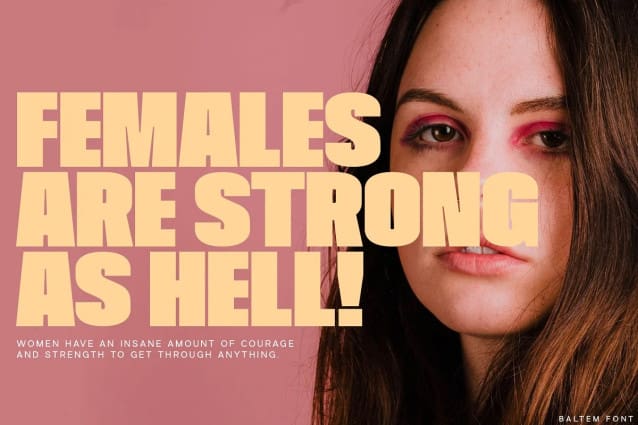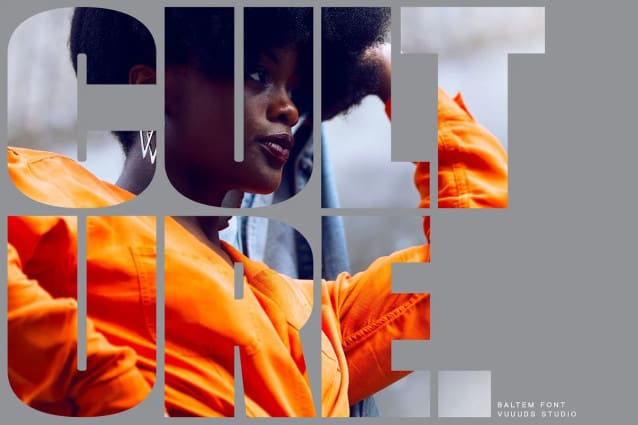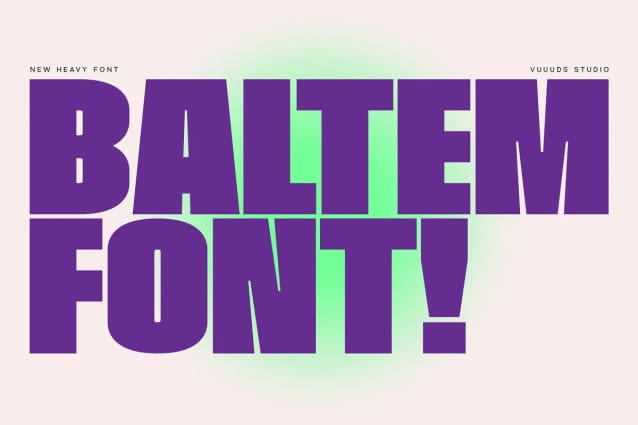
Baltem Font
Baltem Font is modern experimental display font, every single letters have been uniquely crafted. This font including beautiful alternate glyph. You can access the alternate glyph via Font Book (Mac user) or Windows Character Map (Windows user), I’ve been put the link tutorial inside the zip file.
Foreign languages support: ÀÁÂÃÄÅÆÇÈÉÊËÌÍÎÏÐÑÒÓÔÕÖØÙÚÛÜÝàáâãäåæçèéêëìíîïðñòóôõöøùúûüýÿ